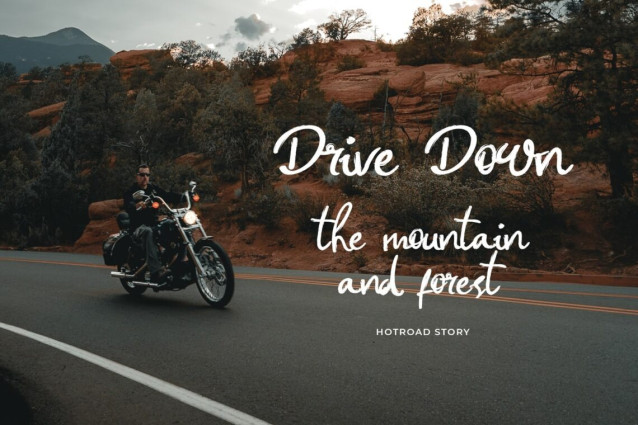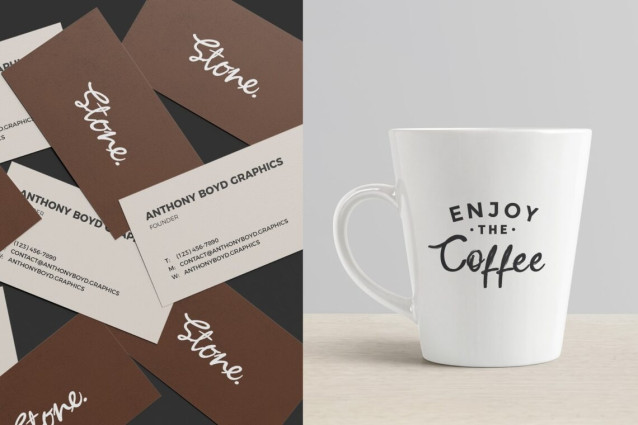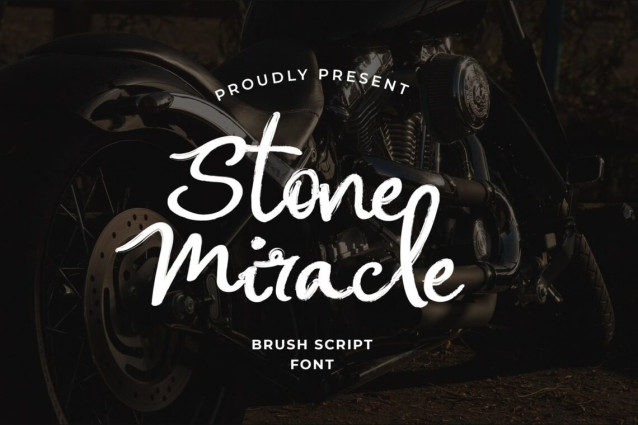
Stone Miracle Calligraphy Brush Style Font
Stone Miracle Calligraphy Brush Style is a hand brush style font and enter the modern script family. It has a distinctive brush curve and grunge effect and rough texture make this font look natural. So this is a font with a contemporary brush style. There is no problem with long or short texts, so this font can be used in various design works. You can use this font for Instagram, quotes and other long texts, this font is also unique for one-word text or short typing, which you can use for product brands, company logos, book covers and magazines, each type will look very distinctive. There is also a combination of numeric and punctuation which has become a common element in every font, so don’t worry. You only need to apply this font in your product design area. try it.